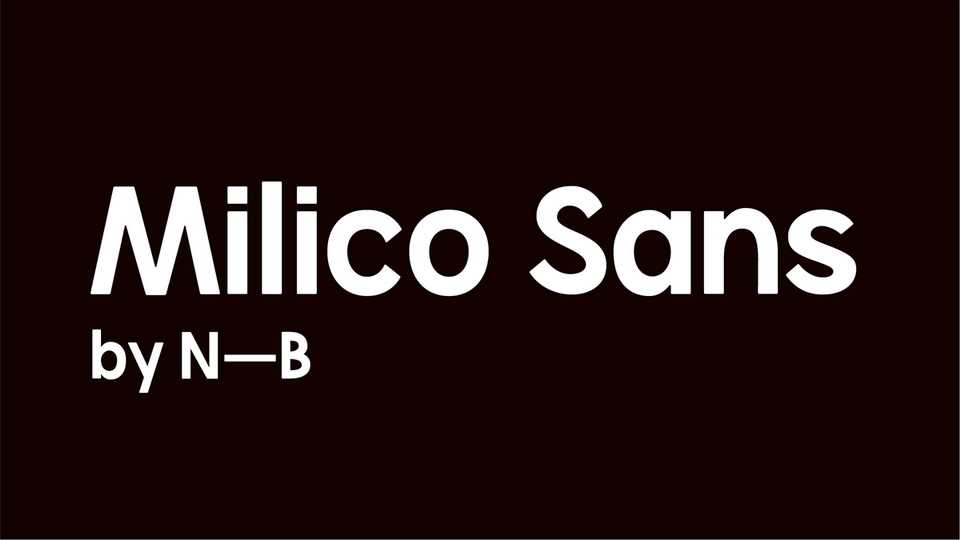
Download Milico Sans font, a bold and powerful typeface inspired in the letterings found in the walls of a military village in Goiânia (Brazil).
Designer: Neuralbrand Studio